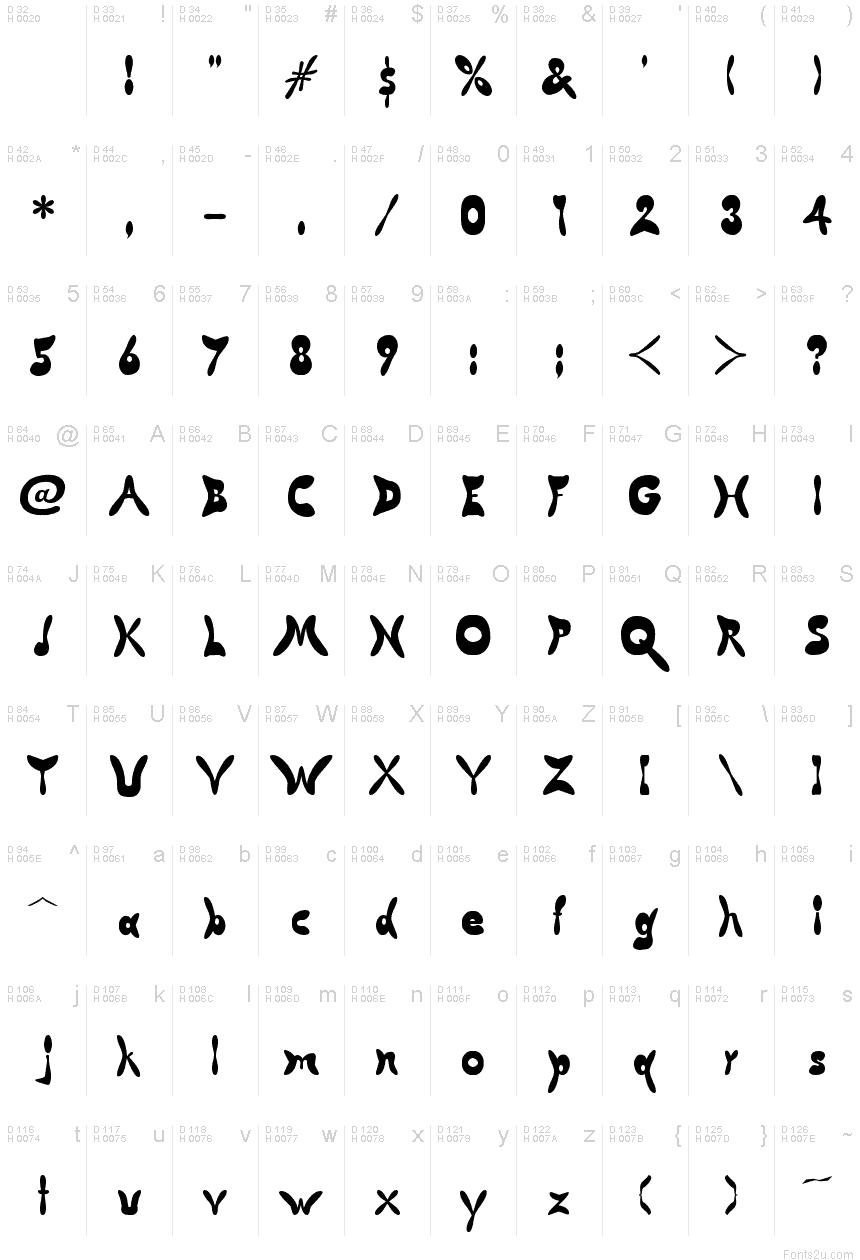
Butterfly Chromosome
Butterfly Chromosome font by Astigmatic One Eye is a free comic display typeface with an oddly squishy charm. Its bulbous, inky shapes bulge and taper like blobs of wet paint, giving every word a wobbly, creature-like energy. Letters feel hand-drawn and slightly off-kilter, so text looks alive on the page-more like doodles from a notebook than something pulled from a standard font menu.
Using Butterfly Chromosome, you can push titles and logos into wonderfully weird territory: kids’ book covers, Halloween flyers, science-fair posters, spooky party invites, indie game splash screens, and character-driven logos all benefit from its gooey personality. This free font works best at larger sizes where its lumpy curves can be appreciated; pair it with a clean sans serif for body copy to keep layouts readable while letting the headline stay delightfully strange.